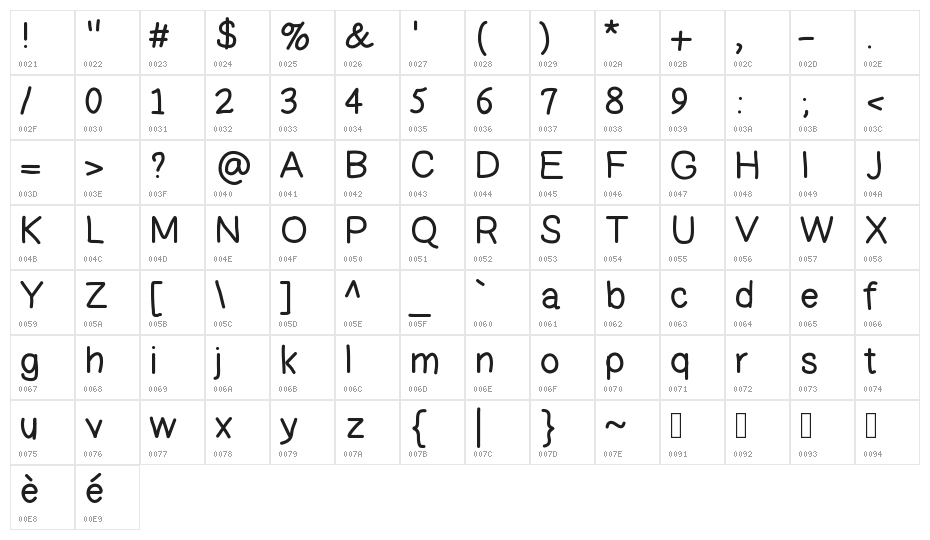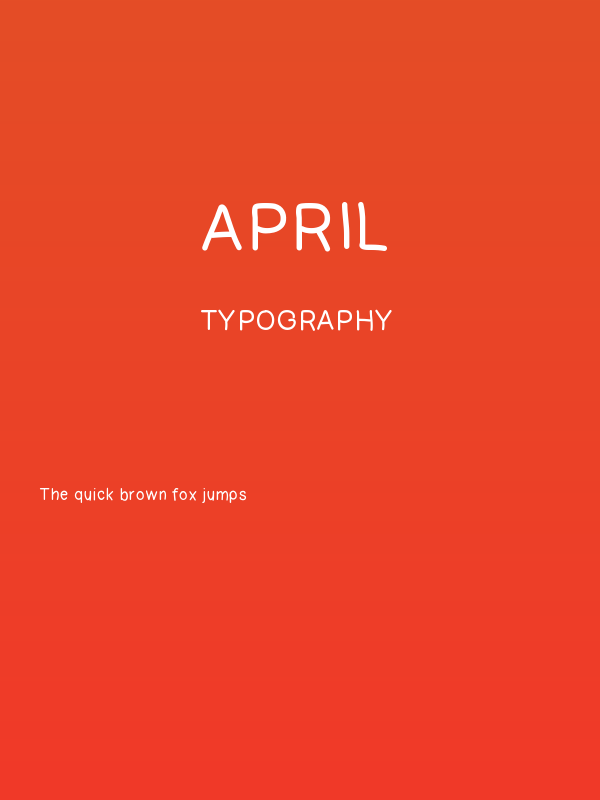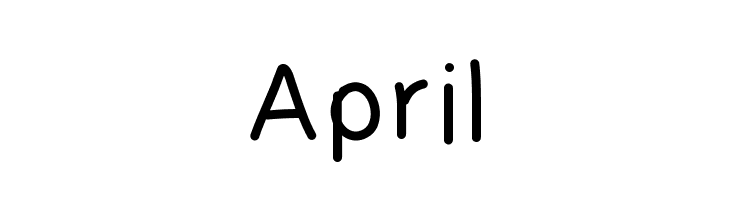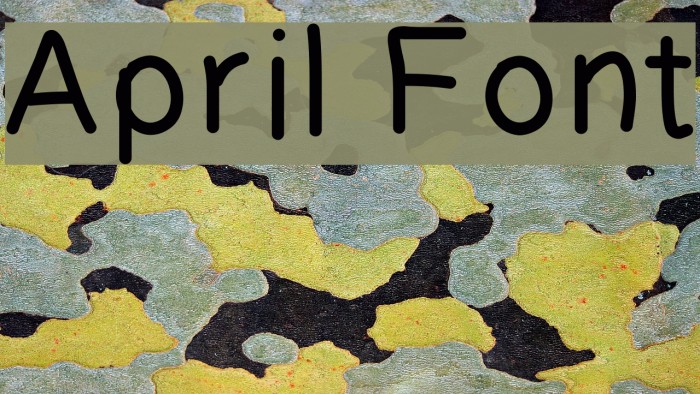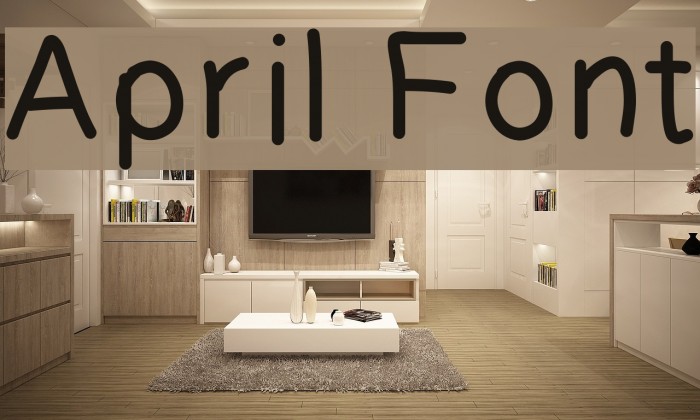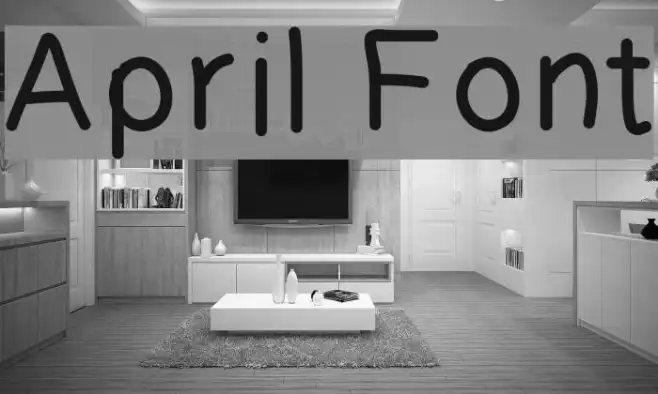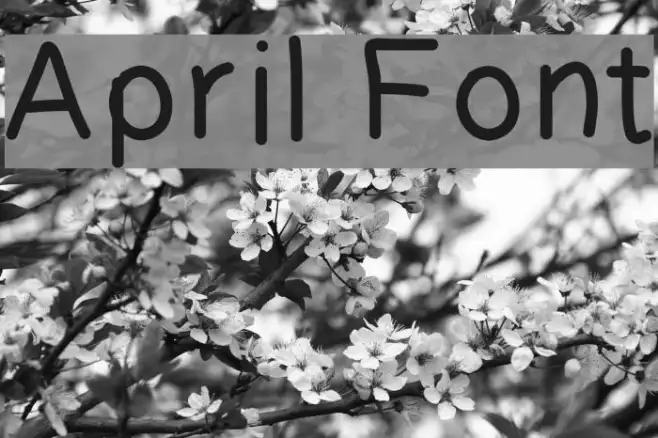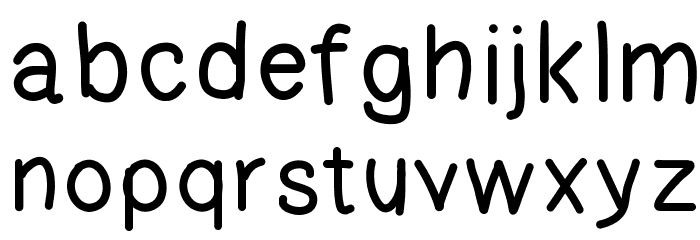
April Font
April Description
This font features a playful and casual handwritten style, characterized by its rounded and slightly irregular letterforms. The strokes are consistent in thickness, giving it a uniform appearance while maintaining a friendly and approachable vibe. The uppercase and lowercase letters are well-proportioned, with a slight slant that adds to its informal charm. The numerals and special characters are crafted with the same playful touch, making them easily readable and visually appealing. This font is versatile, suitable for projects that require a personal and informal touch.
| Overall Style | Casual |
| Use Case | Headlines, Informal text, Branding |
| Proposed Projects | Ideal for greeting cards, children's books, casual branding, and social media graphics. |